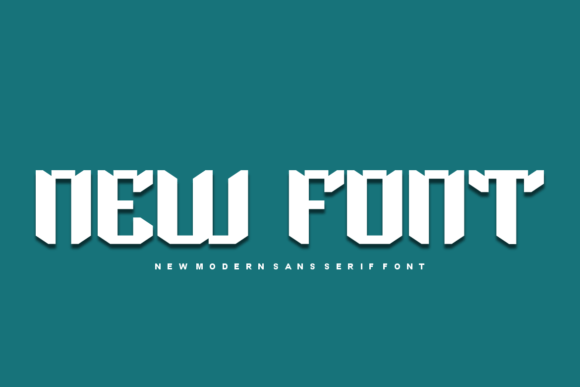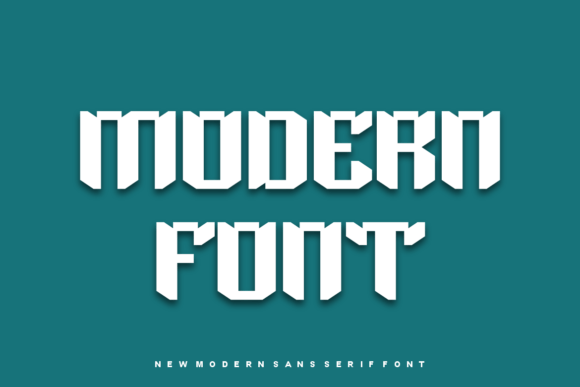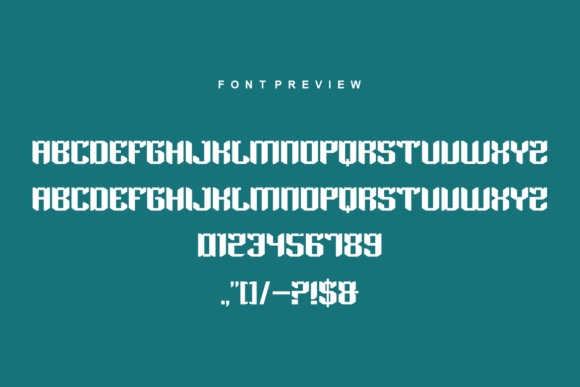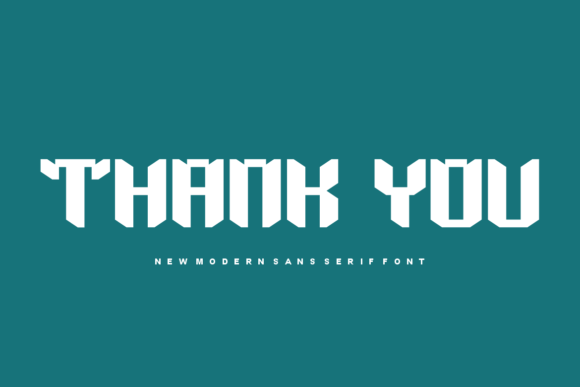
Introduction to Smogero Font
Smogero – Font – Modern Font is a bold and authentic display font.
The font is suitable for any branding project like logo, esport, and many more outstanding in a wide range of contexts.
Key Features of Smogero Font
Why Choose Smogero Font?